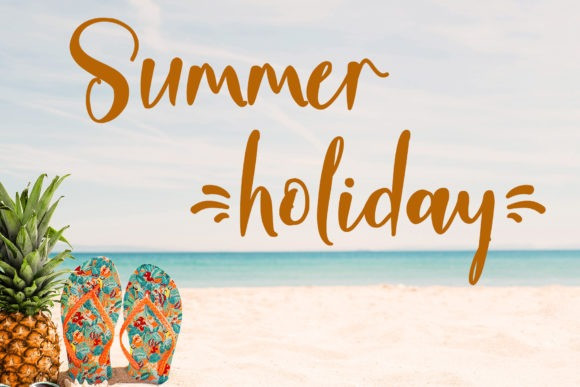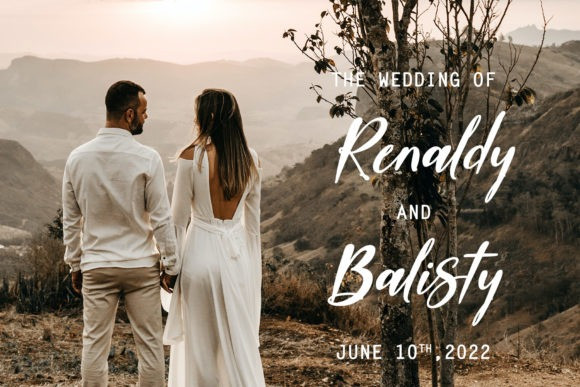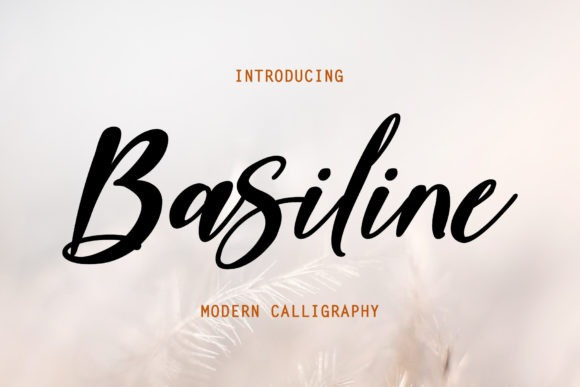
Basiline Font
Basiline Script Font is a relaxed, delicate and fashionable script font. It will add a luxury spark to any design project that you wish to create! This font is PUA encoded which means you can access all of the glyphs and swashes with ease!